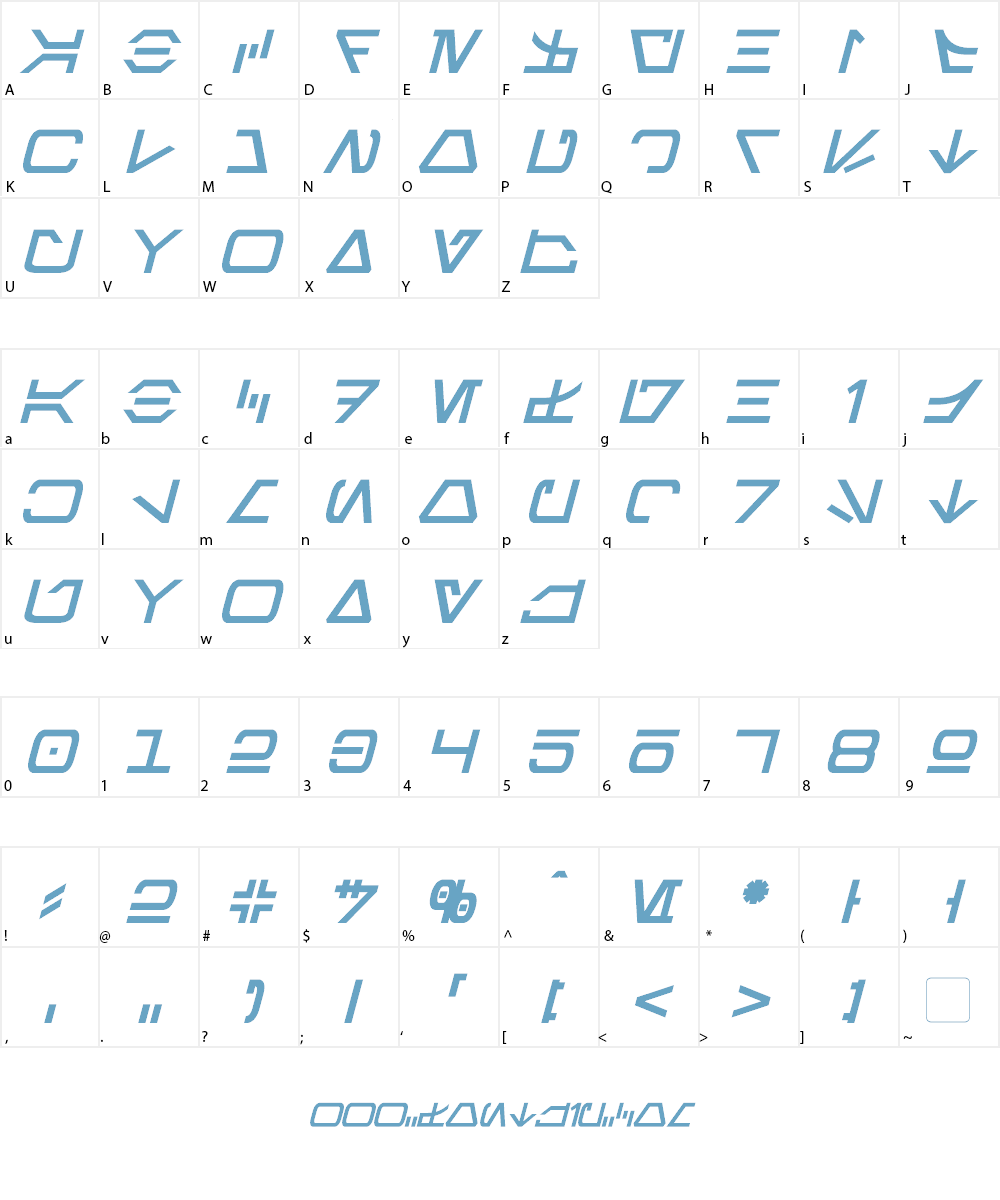
Aurebesh is based on the legendary Star Wars "Galactic Standard" typeface. This version of the font is based on the old RPG version from West End Games and includes all canonical characters. Includes bold, italic, bold-italic and condensed versions of the above.